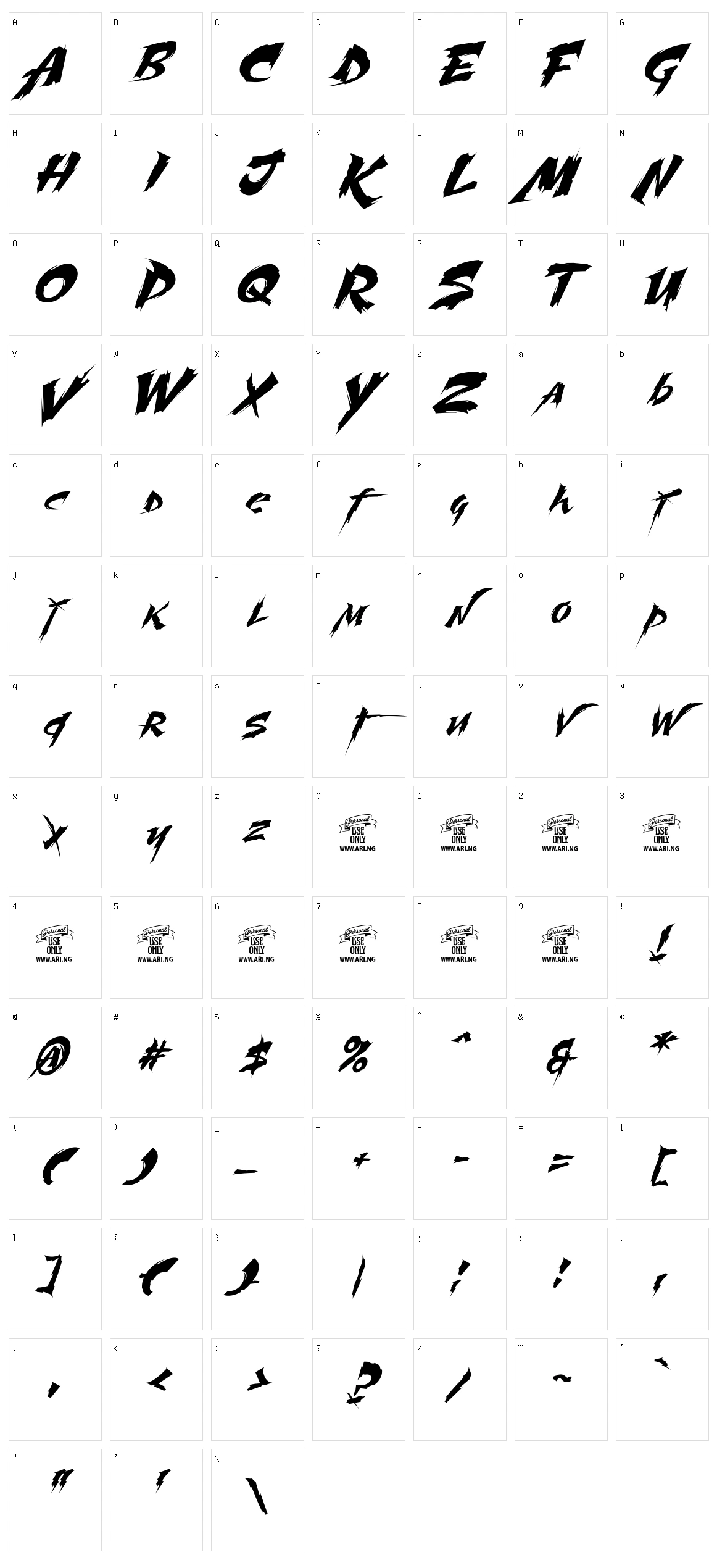
The free font Martyric is carefully designed by Mans Greback, showcasing a thoughtful balance of creativity and usability and falls under the Horror font style. When you download the ZIP file, it contains only 1158 KB of font files, making it lightweight and quick to download. Please review the license details below to understand permitted usage and distribution rights. If license information is not available, we recommend using this font for personal projects only or contacting the author directly for commercial usage permissions.